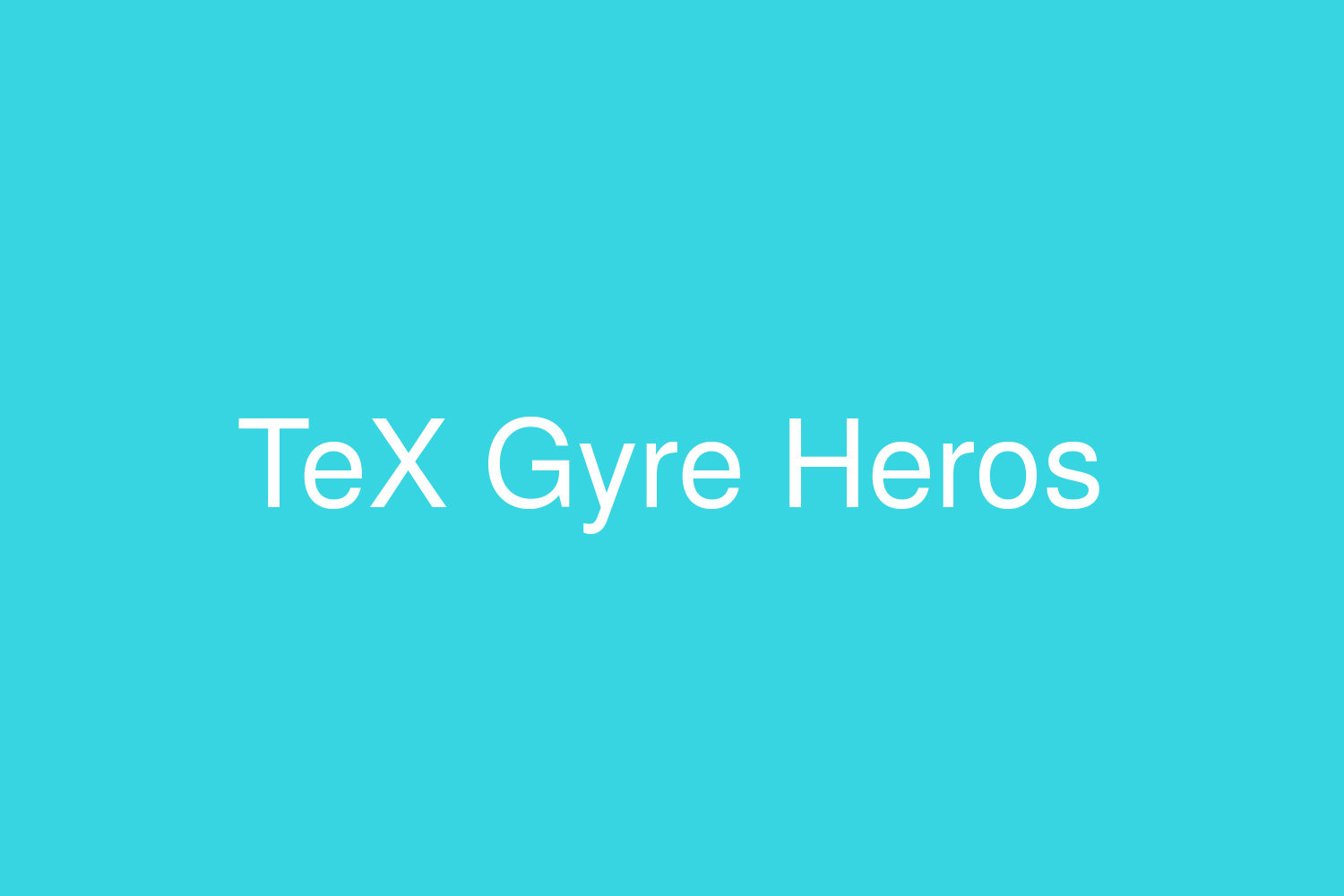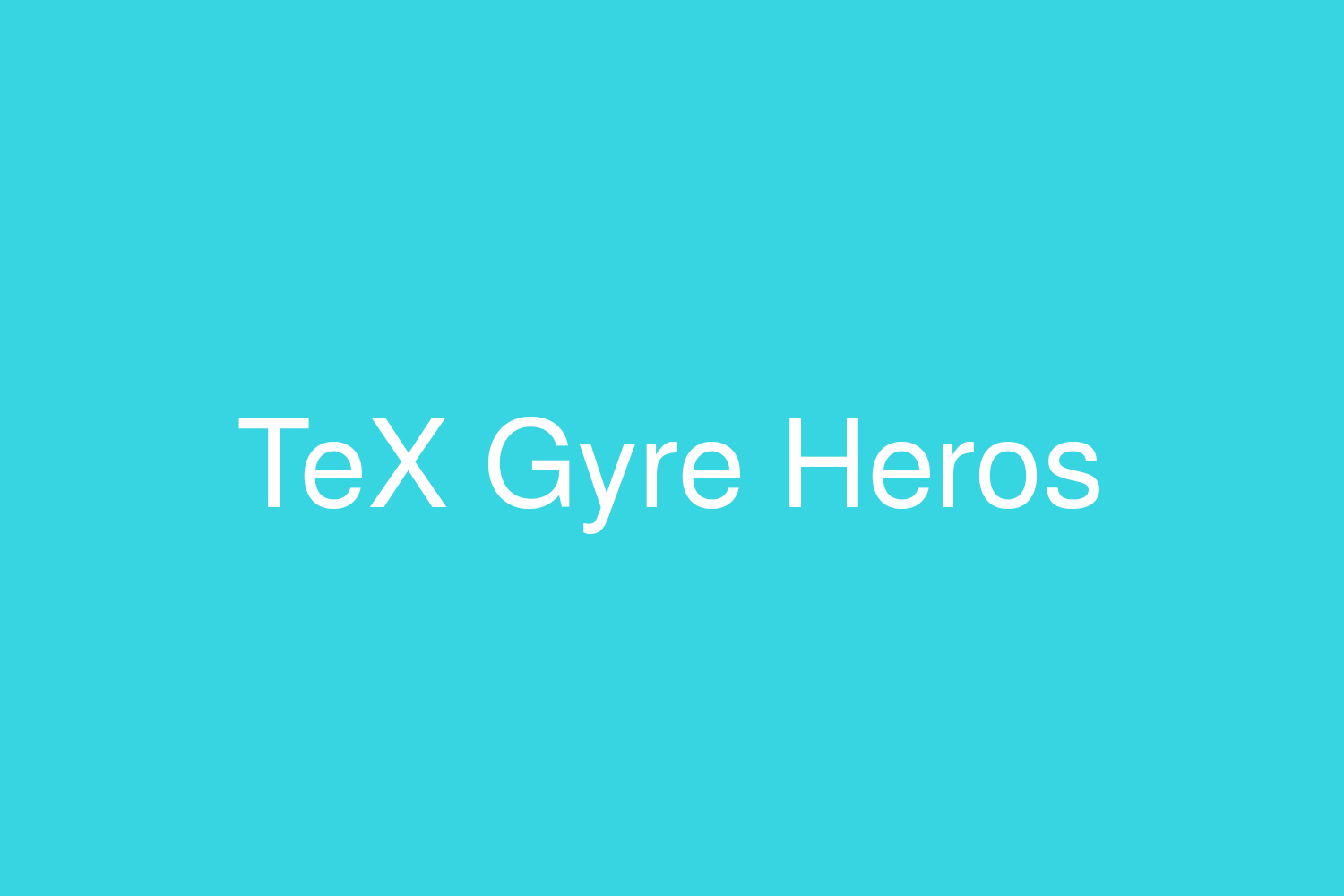
The TeX Gyre Heros Free Font Family of sansserif fonts is based on the URW Nimbus Sans L family distributed with Ghostscript. The original font, Helvetica, was designed in 1957 by Max Miedinger in cooperation with Eduard Hoffman at the Haas type foundry. The constituent 8 faces (4 standard and 4 condensed) contain nearly 1250 glyphs each.
Designed by GUST e-foundry